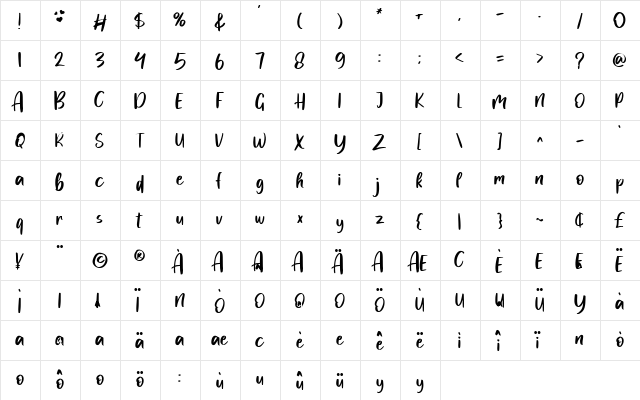
MyLove Regular
| Foundry | Vultype Co |
| Designer | Vultype Co |
Design Context for MyLove Typeface
MyLove is a composed and adaptable typeface that performs quietly and consistently across a wide range of design contexts.